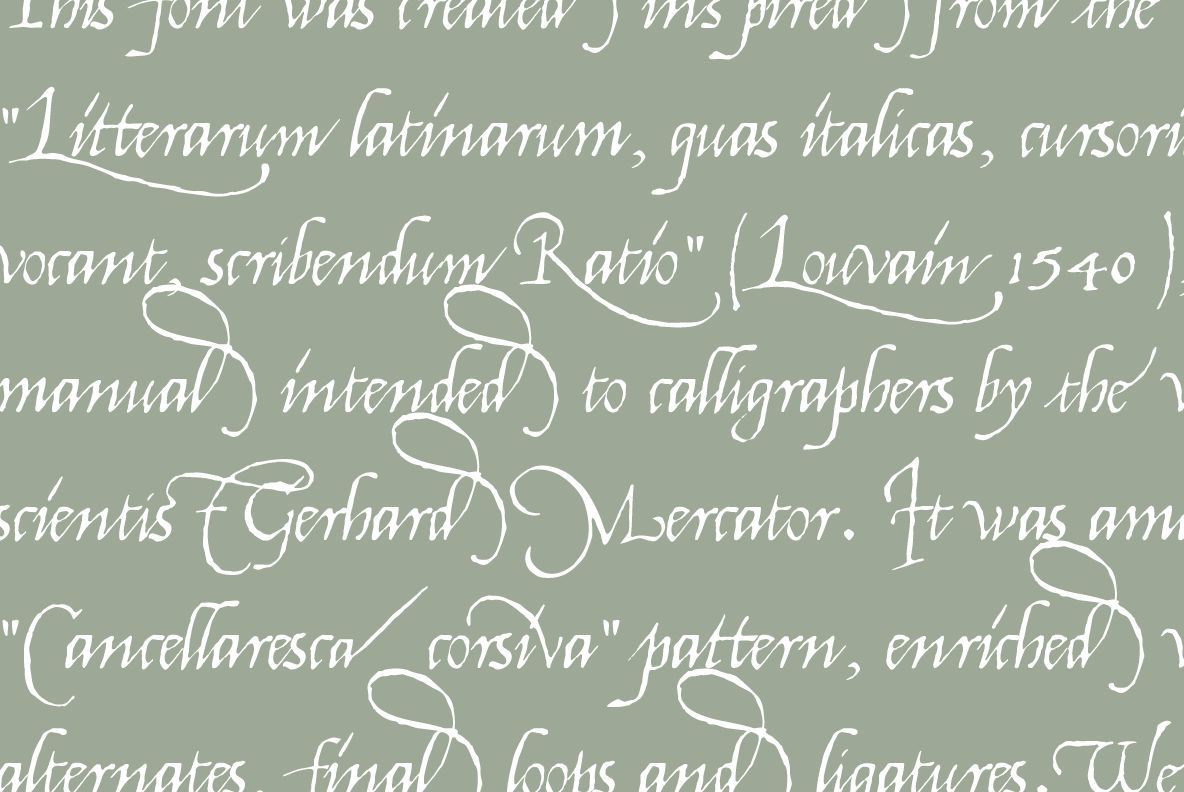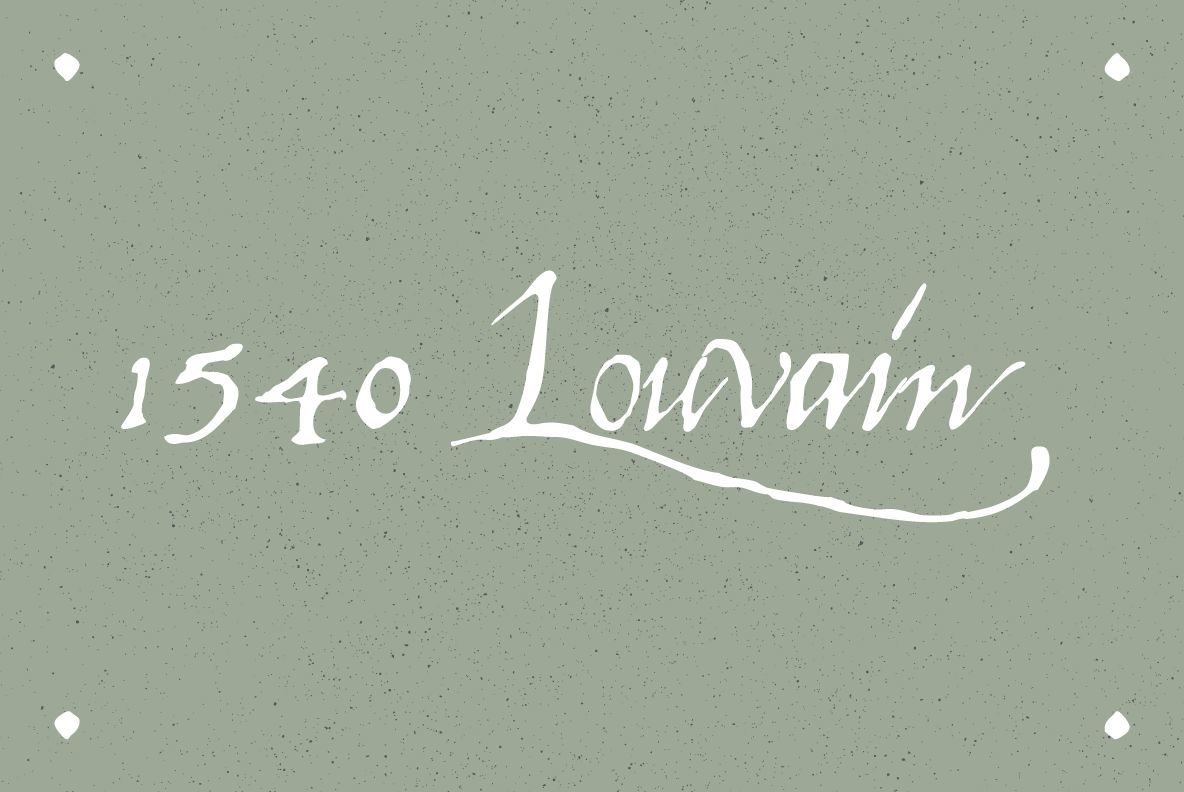
1540 Mercator Script Font
This font was created inspired from the so called "Litterarum latinarum, quas italicas, cursoriasque vocant, scribendum Ratio" (Louvain 1540), a manual intended to calligraphers by the well known scientist Gerhard Mercator.
It was a magnificent "Cancellaresca corsiva" pattern, enriched with many alternates, final loops and ligatures.
We have added a lot of accented and other characters who was not existing in the original, for a modern use.